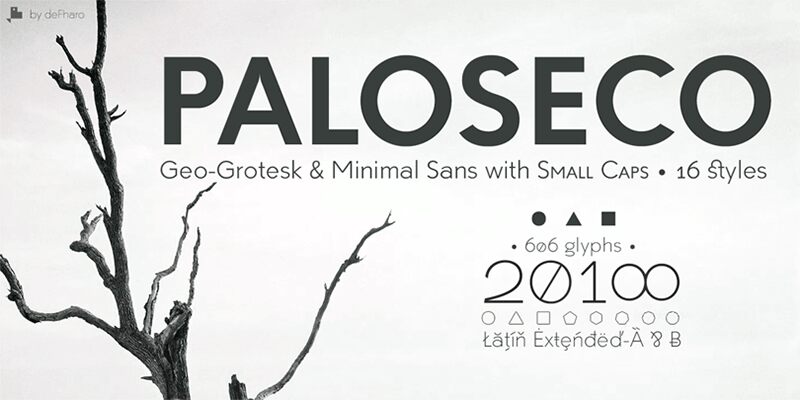
Paloseco Light
Paloseco Light is a strikingly modern sans-serif font designed by Fernando Haro. Its clean, streamlined letterforms evoke a sense of sophistication and minimalism, making it an ideal choice for a wide range of design applications. The light weight lends a delicate, airy quality, while the subtle curves and balanced proportions create a seamless, harmonious aesthetic. Paloseco Light's versatility allows it to shine in branding, editorial, and digital design, effortlessly conveying a sense of elegance and refinement.
The font's understated elegance and legibility make it a compelling option for both display and body text. Its versatility enables it to adapt to diverse design contexts, from sleek and contemporary to timeless and classic. Paloseco Light's harmonious balance of form and function makes it a valuable asset in the designer's toolkit.
Paloseco is a Sans Serif typographic family of Geo-Grotesque style with 8 pesos plus the italic versions all include small capital letters and cryptocurrency symbols.
It is a geometric, minimalist typography, with neo-grotesque modulations. The typeface has alternative letters and numbers, small caps and advanced OpenType functions. The proportions, metrics and kerning I have configured meticulously for a perfect reading in any size.
The font's understated elegance and legibility make it a compelling option for both display and body text. Its versatility enables it to adapt to diverse design contexts, from sleek and contemporary to timeless and classic. Paloseco Light's harmonious balance of form and function makes it a valuable asset in the designer's toolkit.
Paloseco is a Sans Serif typographic family of Geo-Grotesque style with 8 pesos plus the italic versions all include small capital letters and cryptocurrency symbols.
It is a geometric, minimalist typography, with neo-grotesque modulations. The typeface has alternative letters and numbers, small caps and advanced OpenType functions. The proportions, metrics and kerning I have configured meticulously for a perfect reading in any size.
Paloseco is a Sans Serif typographic family of Geo-Grotesque style with 8 pesos plus the italic versions all include small capital letters and cryptocurrency symbols.
It is a geometric, minimalist typography, with neo-grotesque modulations. The typeface has alternative letters and numbers, small caps and advanced OpenType functions. The proportions, metrics and kerning I have configured meticulously for a perfect reading in any size.